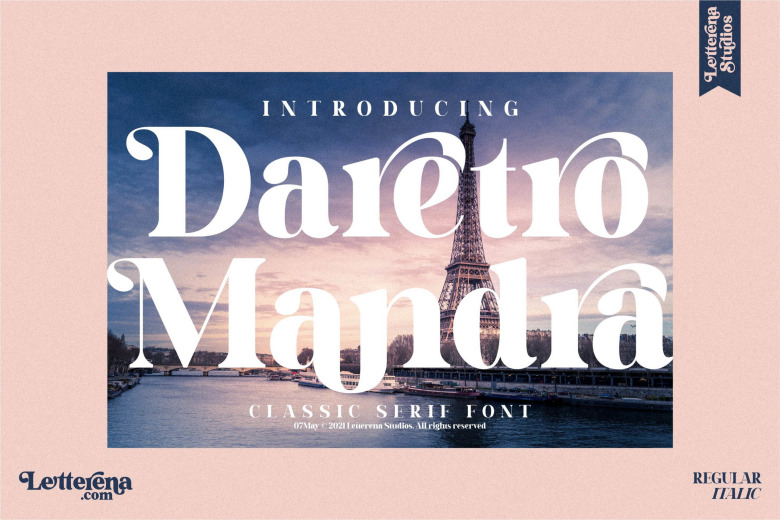
Daretro Mandra Font
A new stylish bold serif typeface with beautiful ligatures and alternates. It can be used for various designs that require either an informal or formal touch. This font is PUA encoded which means you can access all of the glyphs and swashes with ease!